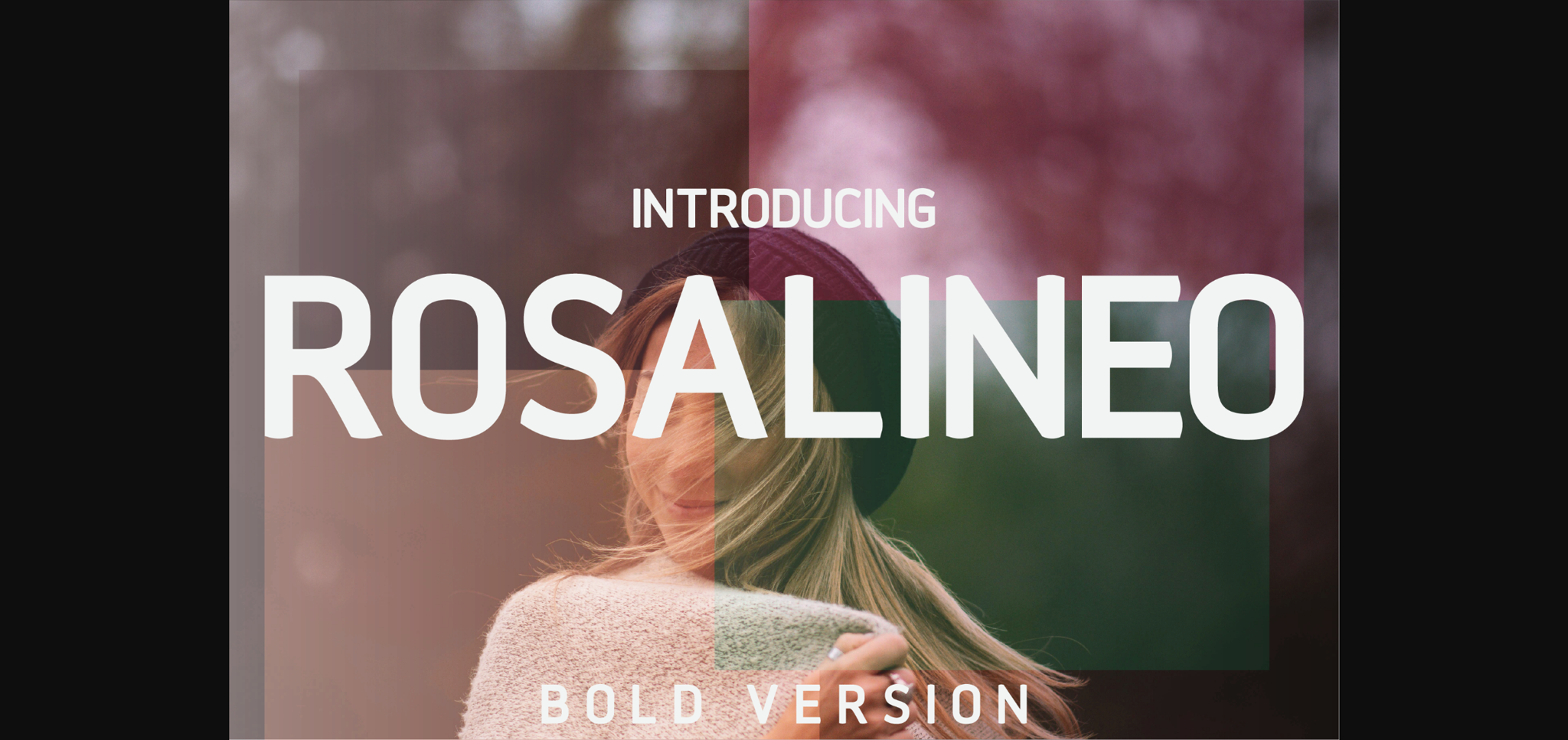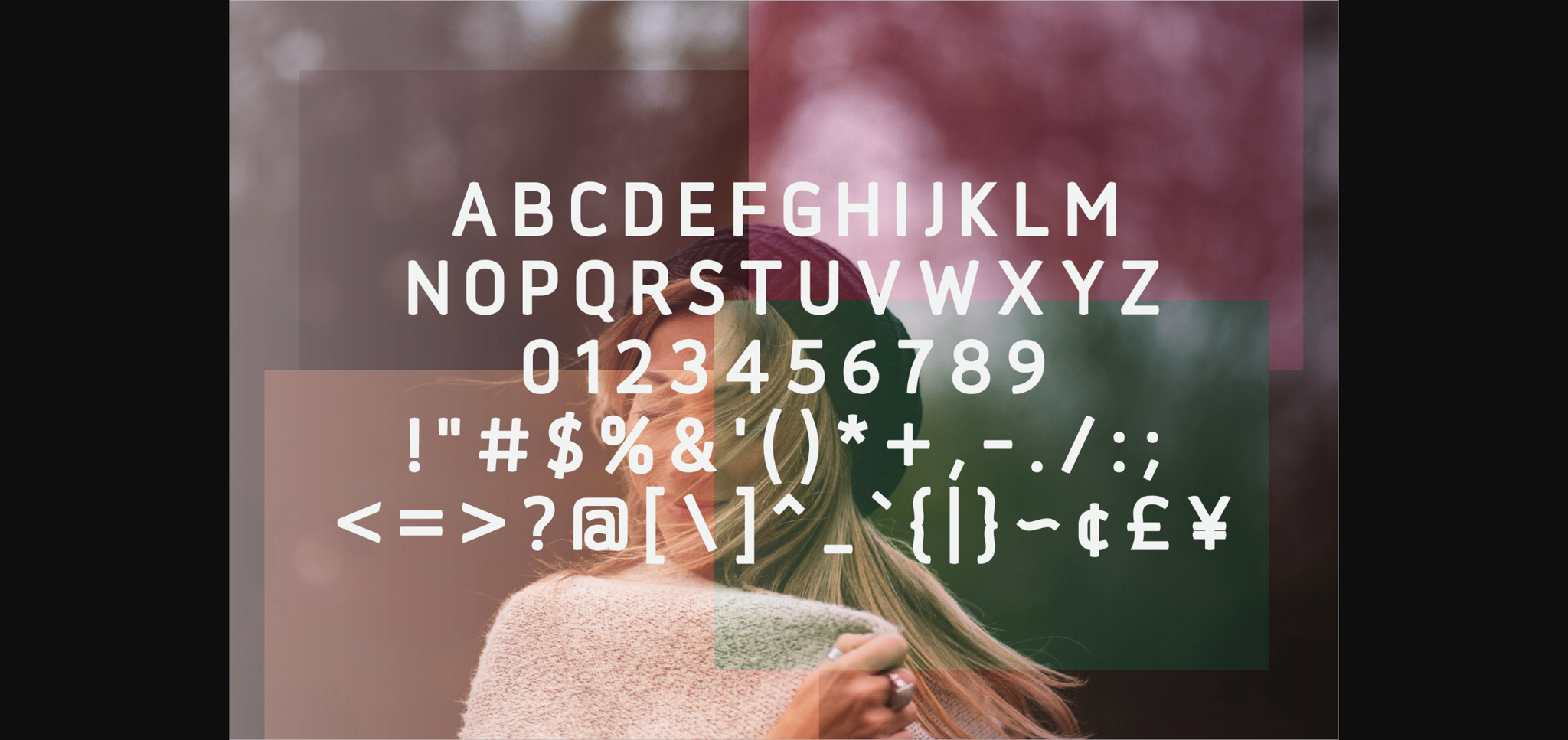
HomeSans Serif FontsRosalineo Bold Font Sans Serif Fonts Rosalineo Bold Font FacebookTwitterPinterestWhatsApp 1 of 4 ... Rosalineo Bold Font Poster 2... Rosalineo Bold Font Poster 3... Rosalineo Bold Font Poster 4... About Rosalineo Bold Font Rosalineo Bold is a typographic homage to the iconic Helvetica font. It works well both on the page and the screen, in large display sizes as well as smaller body sizes. DOWNLOAD NOW 123 0 People also explored Strong Heart Duo Font Cheesy Grits Font Keystore Mind Font Gray House Font Natalle Font Heiger Font Bloush Smouts Font Voynich Family Font Dumero Font Kazasttan Font Sunrise Font Princes Rapunzel Font TagsRosalineo Bold Font Previous articleRosalineo Semi-Bold FontNext articleRosalineo Extra-Bold Font LEAVE A REPLY Cancel reply Comment: Please enter your comment! Name:* Please enter your name here Email:* You have entered an incorrect email address! Please enter your email address here Website: Save my name, email, and website in this browser for the next time I comment. Unlock Endless Creativity with the FREE September Clipart Huge Bundle (Valued at $700!) Personal Use Free Haris Wood Personal Use Free Read more Sybil Green Personal Use Free Read more Astagina Signature Personal Use Free Read more Pattern Personal Use Free Read more BLOG Free Fonts Risk: Why Free Fonts Can Be Dangerous for Designers Free Fonts Risk: Why Free Fonts Can Be Dangerous for Designers Using free fonts is a common practice in web and graphic design. However, the... Transform Your Website: Elevate Your Typography with 7 Best Web Font Generators Using Fonts in Digital Marketing: Tips to Strengthen Your Brand Identity The 10 Best Handwriting Fonts to Add Personality to Your Designs